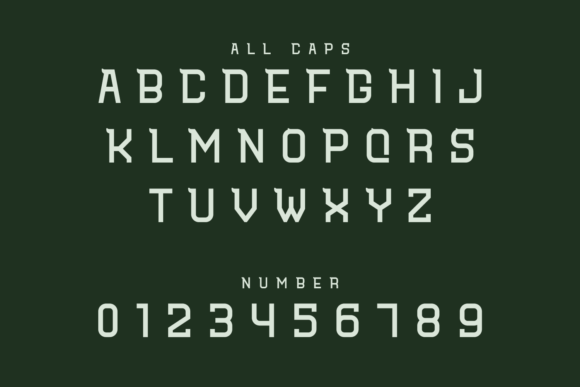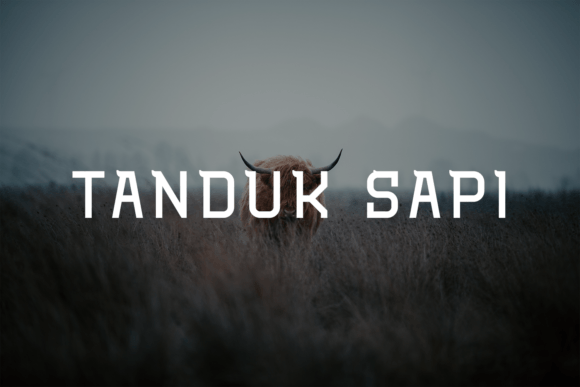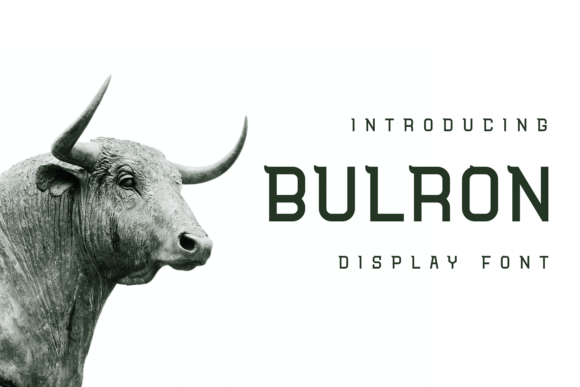
Bulron Font: A Cool and Unique Display Font for Your Creative Projects
In the world of typography, a font can make or break a design. A well-chosen font can elevate your creation and make it stand out from the crowd. If you’re a designer or crafter looking for a unique and cool display font, look no further than Bulron Font. In this article, we’ll explore the features and benefits of Bulron Font and why it’s a great addition to your font library.
What is Bulron Font?
Bulron Font is a modern and stylish display font that’s perfect for a variety of design projects. This font is neatly crafted and highly detailed, making it a great choice for headlines, titles, and other display text. With its unique and cool design, Bulron Font is sure to grab attention and add a touch of personality to your creations.
Key Features of Bulron Font
So, what makes Bulron Font so special? Here are some of its key features:
- Unique and Cool Design: Bulron Font has a distinctive and stylish design that’s sure to make your creations stand out.
- Highly Detailed: This font is carefully crafted with attention to detail, ensuring that it looks great in any size or application.
- Versatile: Whether you’re designing a logo, brochure, or website, Bulron Font is a versatile choice that can adapt to any project.
- Easily Readable: Despite its unique design, Bulron Font is easy to read, making it perfect for display text.
Why Choose Bulron Font?
With so many fonts available, why choose Bulron Font? Here are just a few reasons:
- Adds Personality to Your Designs: Bulron Font has a unique personality that can add a touch of style and sophistication to your creations.
- Enhances Any Creation: Whether you’re designing a logo, brochure, or website, Bulron Font can enhance your creation and make it more engaging.
- Great for Display Text: This font is perfect for display text, such as headlines and titles, where you want to grab attention.
- Supports Multiple Languages: Bulron Font supports multiple languages, making it a great choice for international design projects.
How to Use Bulron Font
Using Bulron Font is easy. Here are a few tips:
- Pair it with Other Fonts: Bulron Font works well with other fonts, so don’t be afraid to experiment with different pairings.
- Use it for Display Text: This font is perfect for display text, such as headlines and titles.
- Experiment with Different Sizes: Bulron Font looks great in any size, so experiment with different sizes to find the one that works best for your project.
In conclusion, Bulron Font is a cool and unique display font that’s perfect for designers and crafters looking to add a touch of personality to their creations. With its highly detailed design, versatility, and ease of use, Bulron Font is a great addition to any font library. Whether you’re designing a logo, brochure, or website, Bulron Font is sure to enhance your creation and make it stand out from the crowd.
Overall, Bulron Font is a great choice for anyone looking for a unique and cool display font. Its versatility, ease of use, and highly detailed design make it a valuable asset for any designer or crafter.